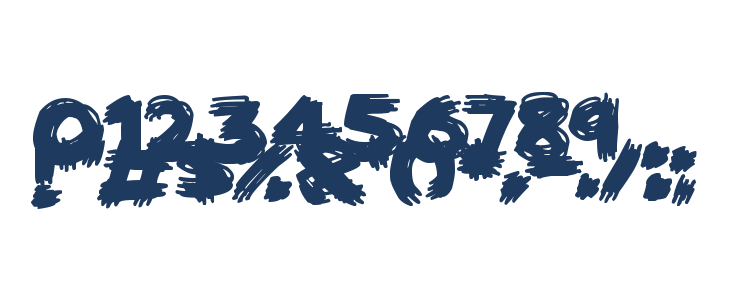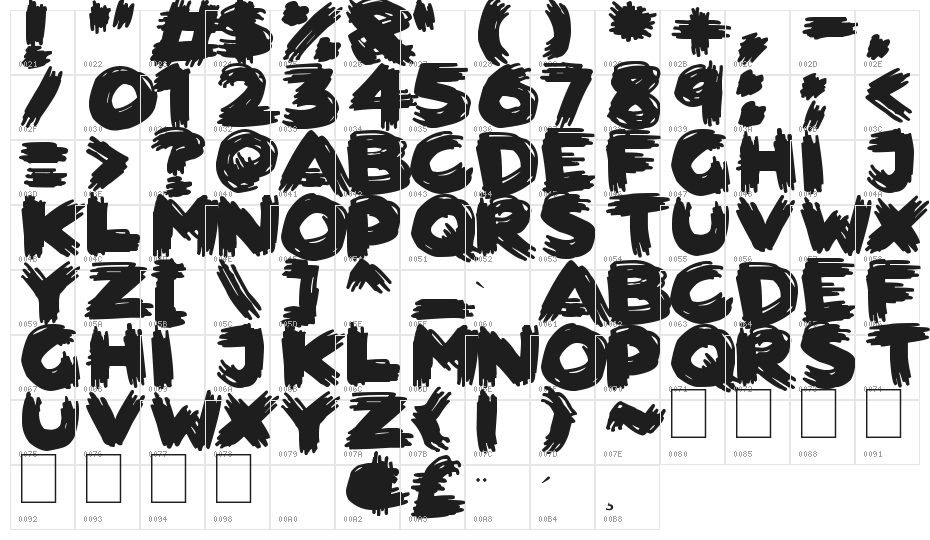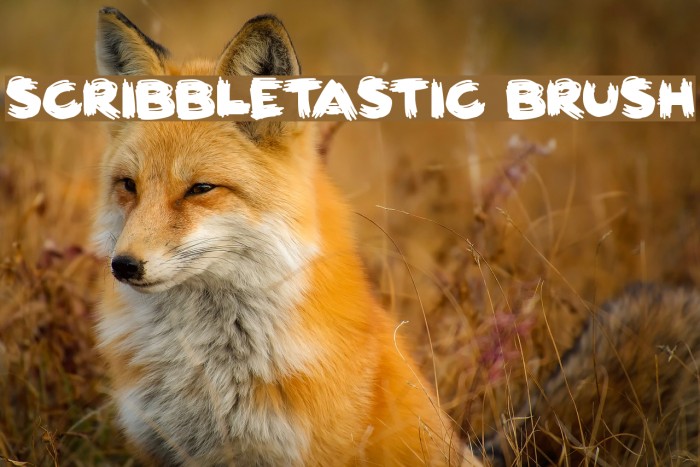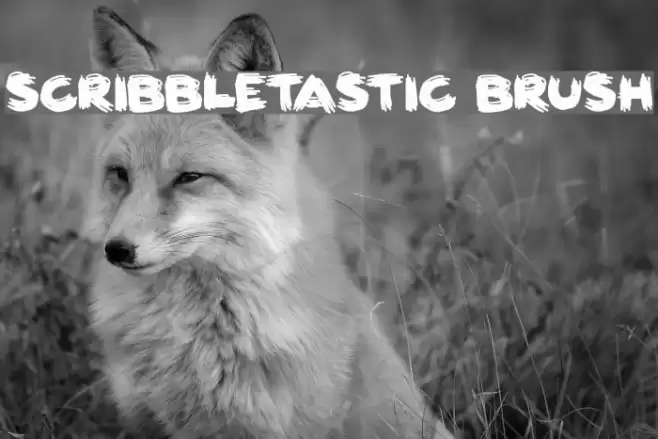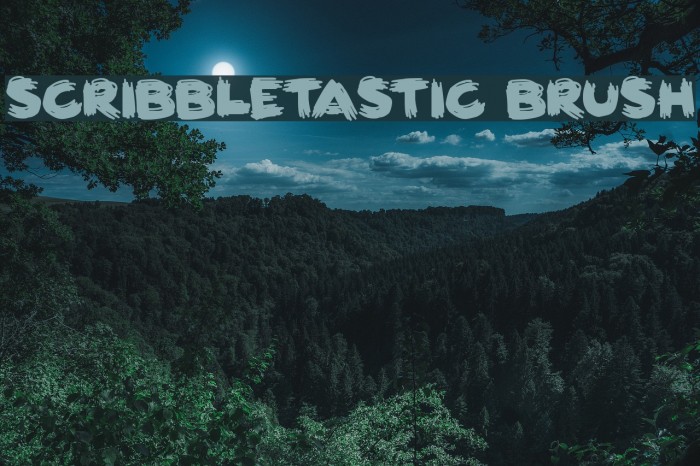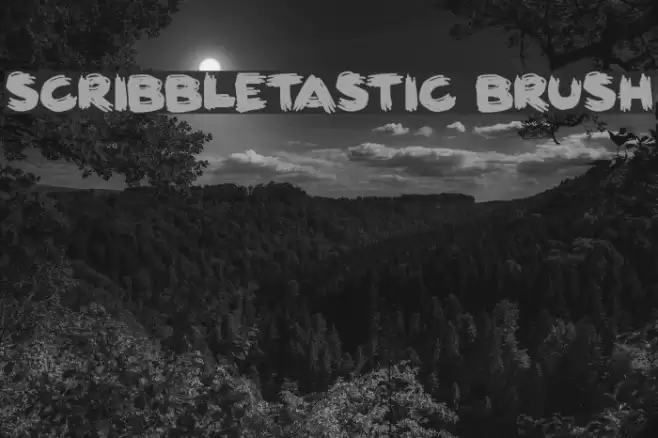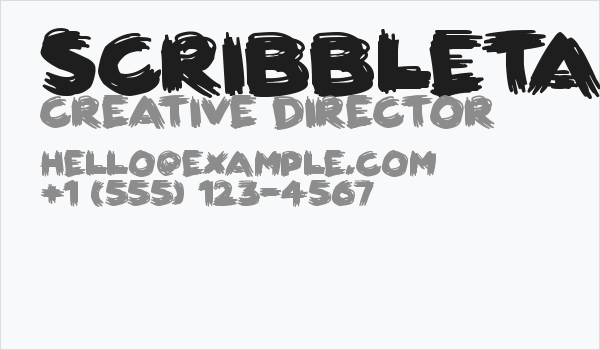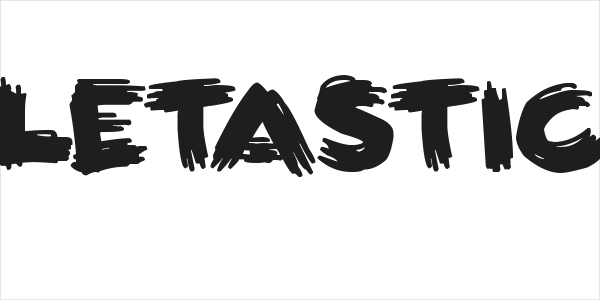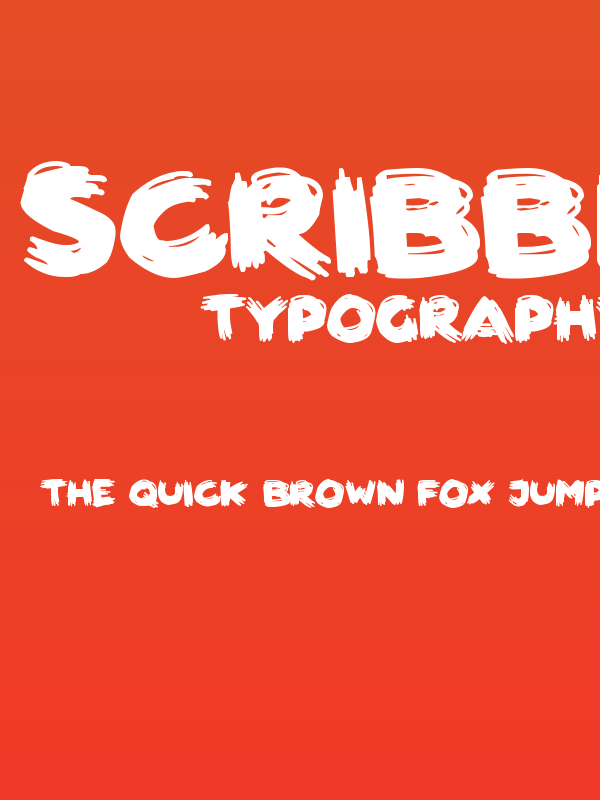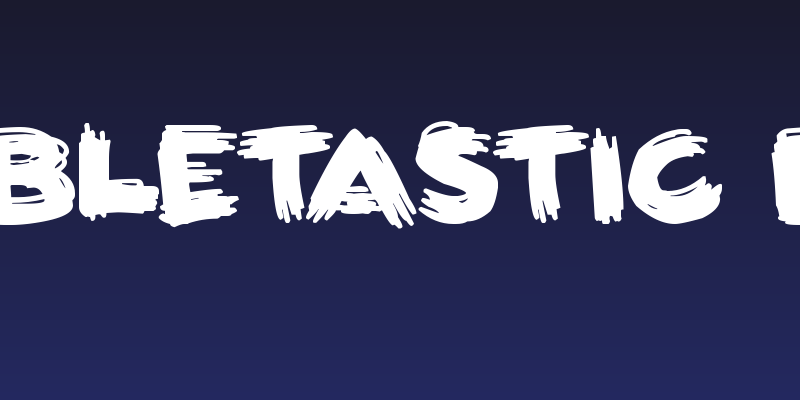
Scribbletastic Brush Font
Scribbletastic Brush Description
This font features a bold, brush-like style with a dynamic and energetic appearance. The strokes are thick and irregular, giving it a hand-painted look that is both playful and expressive. Each character is distinct, with varying stroke widths that add to its artistic flair. The overall design is reminiscent of street art or graffiti, making it ideal for projects that require a creative and informal touch. The font maintains legibility despite its artistic nature, with clear distinctions between characters.
| Proposed Projects | Ideal for posters, album covers, street art-inspired designs, and creative branding projects. |